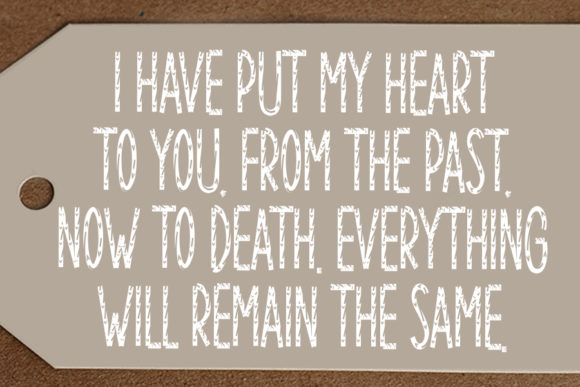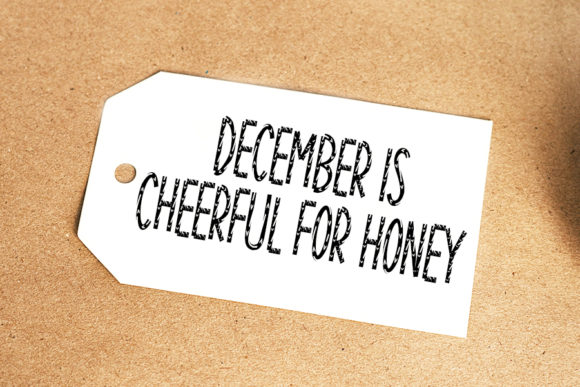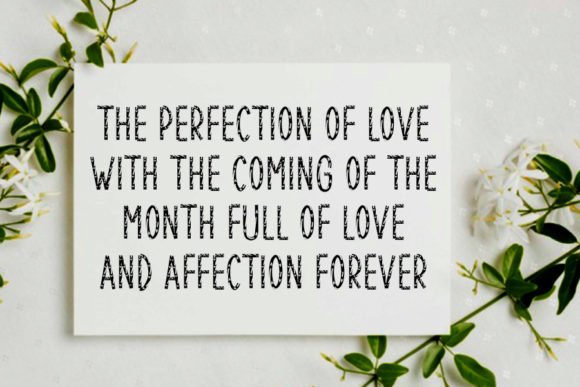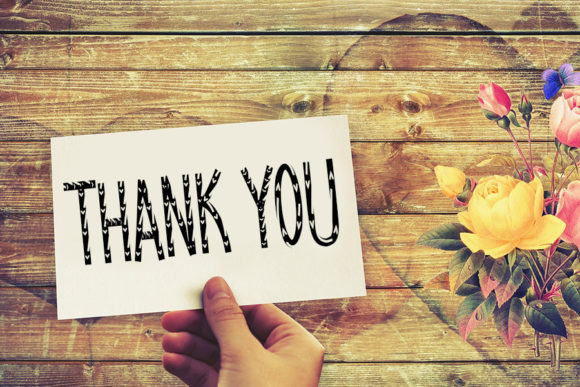
The Power of Broken Heart Font
Have you ever found yourself staring at a blank canvas, struggling to find the perfect words to express your creativity? It’s a moment we’ve all been there, and it’s exactly this kind of moment that makes the Broken Heart Font so special. This unique decorative font is more than just a pretty face – it’s a tool designed to spark inspiration and bring your ideas to life.
With its playful, whimsical style, the Broken Heart Font is perfect for creative projects that need a little extra oomph. Whether you’re crafting inspirational wall posters or communicating your brand’s personality, this font is sure to add a touch of magic to your design. As a designer, you know that the right font can make all the difference in conveying your message – and the Broken Heart Font is a valuable addition to any creative arsenal.
Broken Heart Font Key Features
- Unique Characteristic: The font features a distressed, hand-drawn look, giving it a unique and emotive feel.
Broken Heart Font Review
When I first laid eyes on the Broken Heart Font, I knew I had to give it a shot. The font’s unique, distressed aesthetic immediately caught my attention, and I was excited to see how it would perform in various design scenarios.
- The font’s distressed texture adds a touch of emotional depth to any design, making it perfect for projects that require a more human, imperfect feel.
- The character set is extensive, with a wide range of punctuation and special characters available.
- The font is highly legible, even at smaller sizes, which is a must-have for any font I consider using.
- The font’s distressed texture can be overwhelming in some contexts, making it difficult to read or use as a primary font.
- The font’s character set is not as comprehensive as some other fonts in its category.
Overall, I’d say the Broken Heart Font is a solid choice for designers looking to add a touch of emotional depth to their projects. While it may not be the perfect fit for every design scenario, its unique aesthetic and extensive character set make it a valuable addition to any designer’s toolkit.
Broken Heart Font: A Practical Application Guide
Here are some tips for getting the most out of the Broken Heart Font:
- Use the font to add a touch of whimsy to your designs.
- Pair the font with bold, bright colors to create a playful look.
- Use the font to add a sense of nostalgia or retro charm to your designs.
The Broken Heart Font is perfect for:
- Valentine’s Day designs and cards.
- Retro-themed designs and posters.
- Whimsical and playful designs and illustrations.
Alternatives to Broken Heart Font for Designers
Lobster Font is a script font that mimics handwriting. It’s ideal for creating a romantic or elegant feel in designs. Use it for wedding invitations, love letters, or any project that requires a touch of sophistication. Compared to Broken Heart Font, Lobster Font is more versatile and can be used in a wider range of designs.
Great Vibes Font is a beautiful script font that’s perfect for creating a fun and playful atmosphere. Use it for party invitations, social media graphics, or any project that requires a carefree vibe. Compared to Broken Heart Font, Great Vibes Font is more energetic and playful.
Pacifico Font is a beautiful script font that’s reminiscent of a seaside feel. Use it for travel brochures, beach-themed designs, or any project that requires a relaxed and laid-back atmosphere. Compared to Broken Heart Font, Pacifico Font is more laid-back and easy-going.